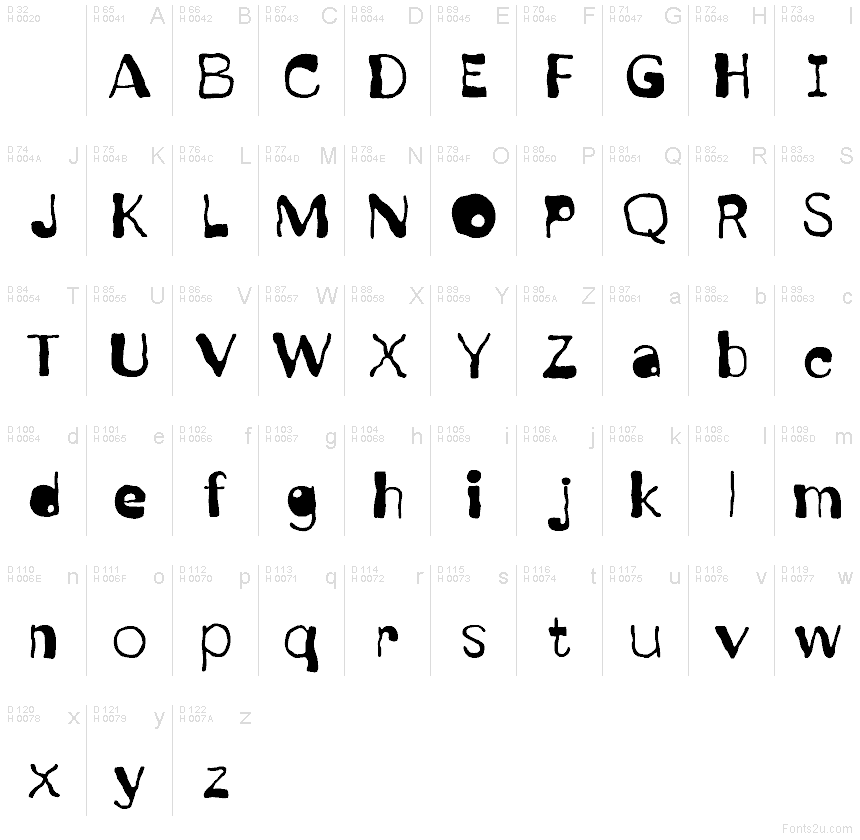
CS Genaro Regular Demo
CS Genaro font by Craft Supply Co. is a bold display type with a distorted style for casual design projects. Its unique characteristics like irregular shapes and an organic feel attest to its modern application in creative projects.
Used in various art endeavors, the free font can be seen on book inscriptions, posters, apparel designs, business cards/cards in general, packaging designs, photo captions, body texts of children’s books/magazines/comics/textbooks/novels/newspapers or menus of cafés/restaurants/coffee shops—anywhere language would occur.